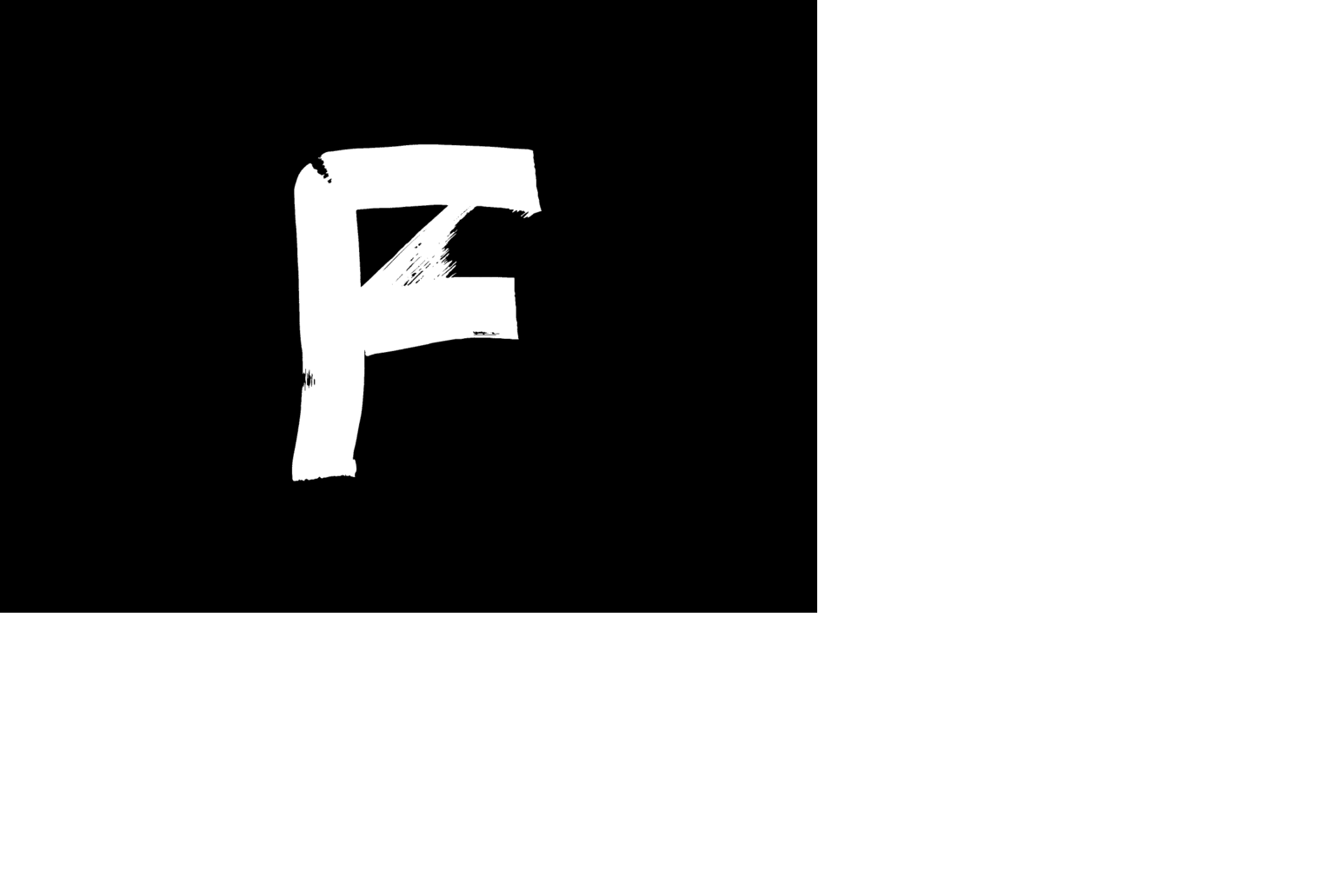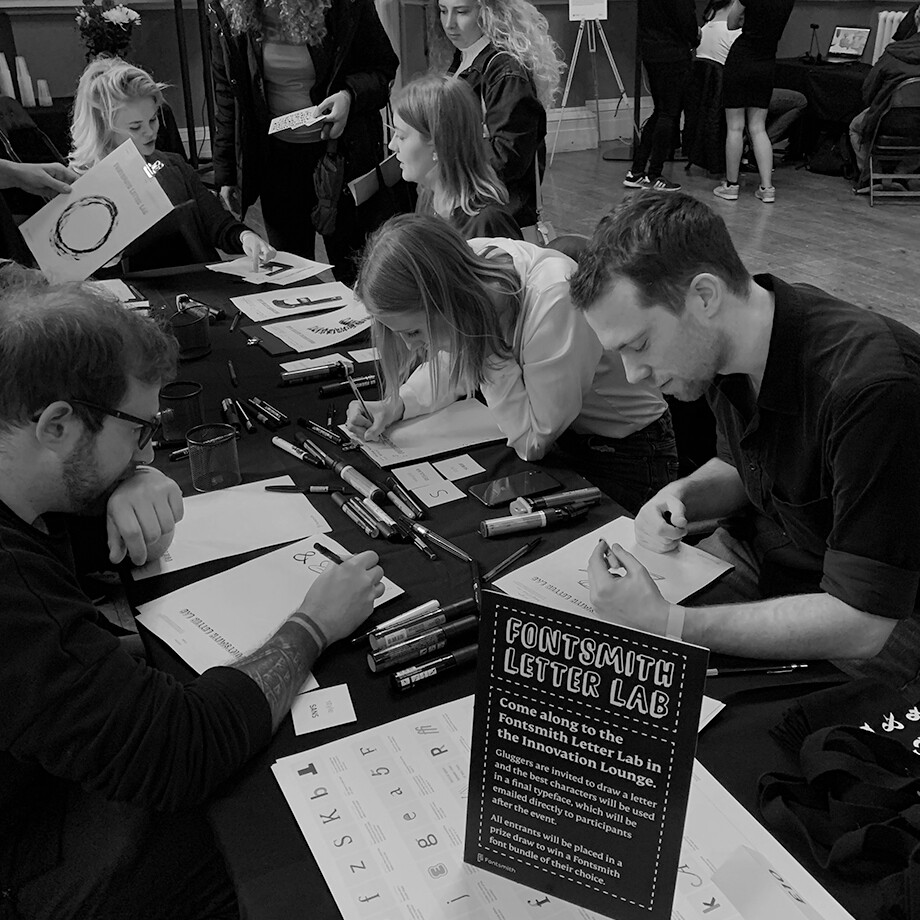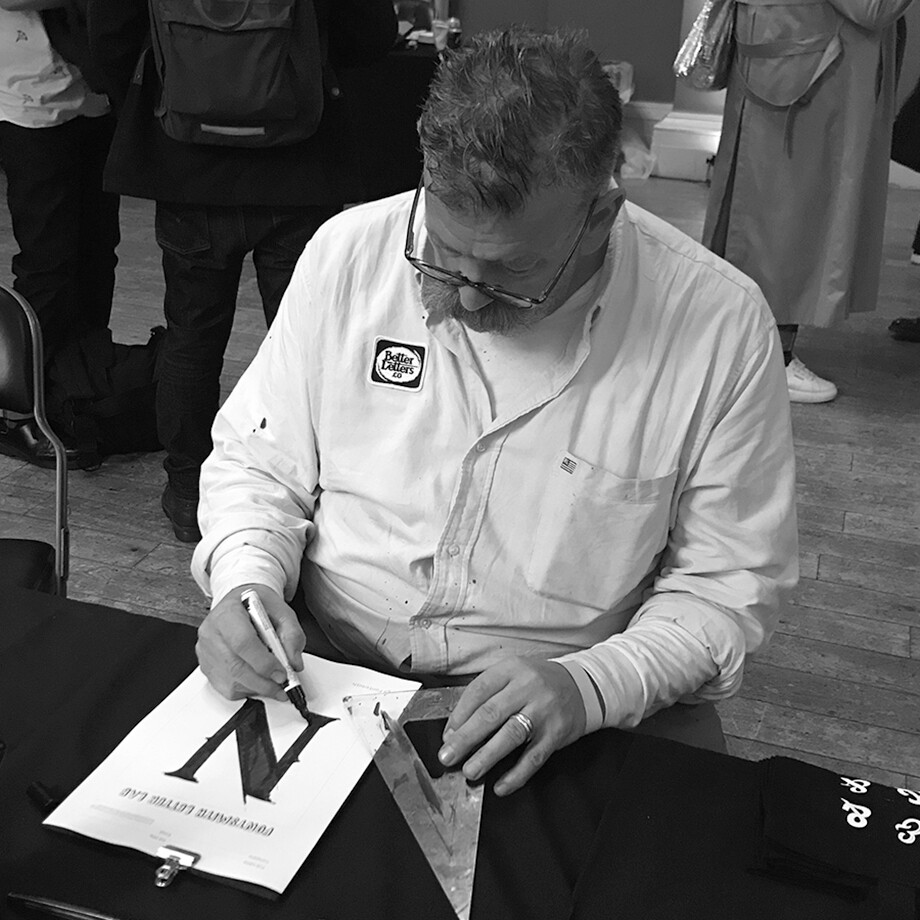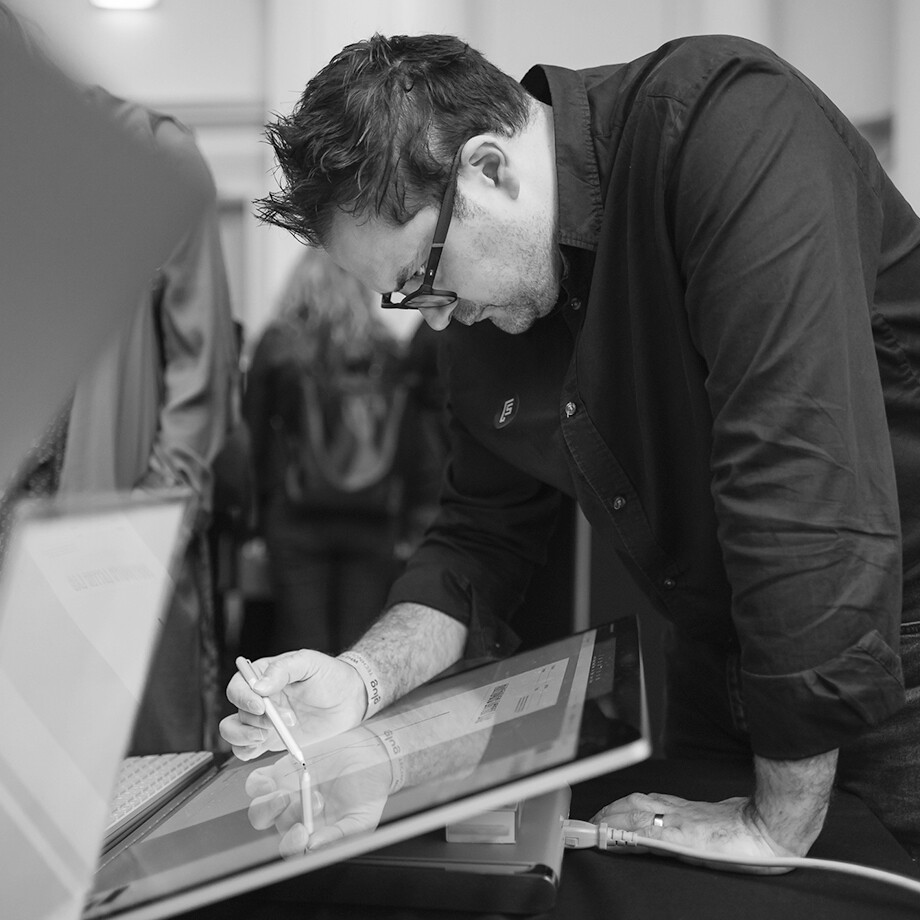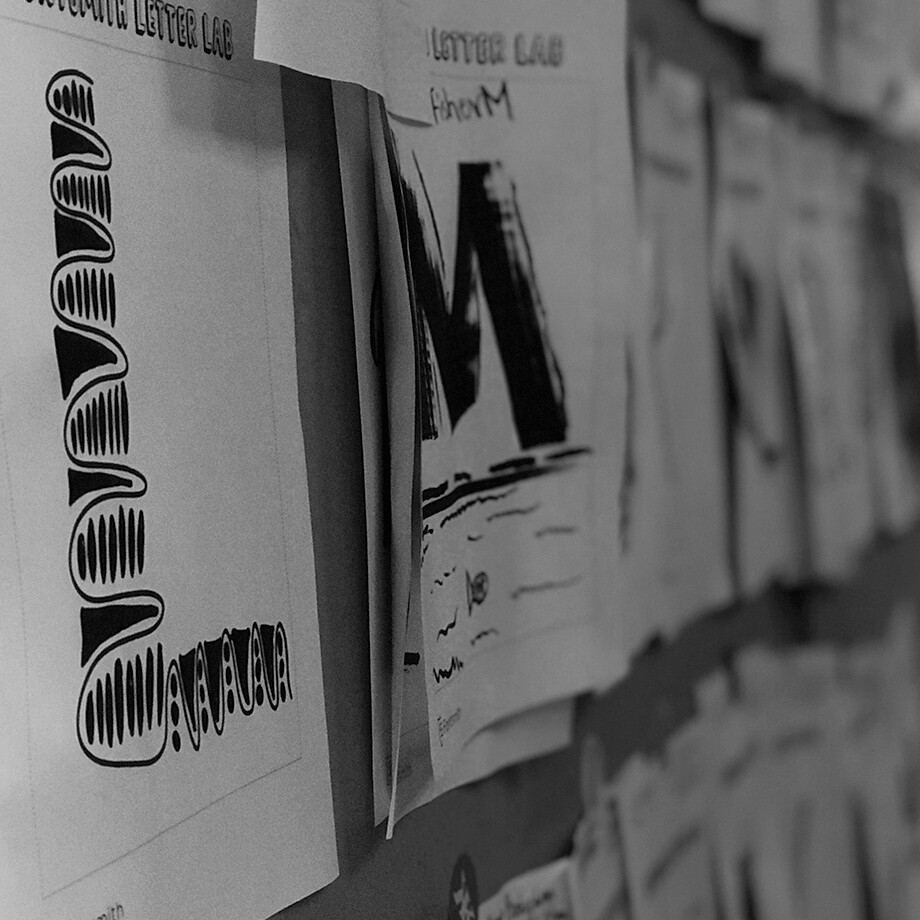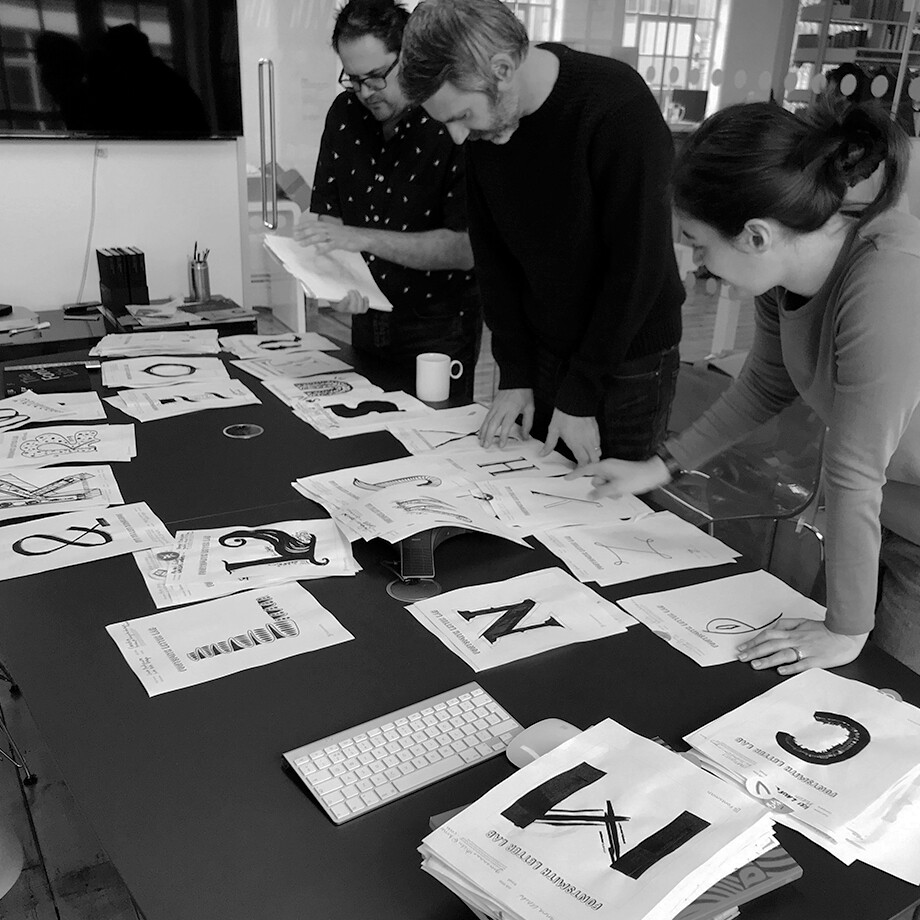
Glug Irregular at Fontsmith Letter Lab
During Glug London’s 2019 Thinking Big event we invited attendees to join us in the Fontsmith ‘Letter Lab’ to create and submit some experimental letterforms.
Our plan was to challenge attendees to draw and experiment with letterforms using a lucky dip system of picking typographic variables and challenging ways of drawing them. We would then take a selection of these letters and transform them into an experimental typeface.
After being inundated with over 150 entries it was a tough time to narrow down the submissions. Designers from agencies and brands, illustrators, sign painters, calligraphers, copywrighters and students all got involved.
Eventually we settled on 54 of our favourites that we have now transformed into ‘Glug Irregular’, a wonderfully offbeat and experimental typeface perfect for use on your next ransom note.
Two versions of each letter were included in the font and can alternate when the OpenType feature ‘contextual alternates’ is switched on.